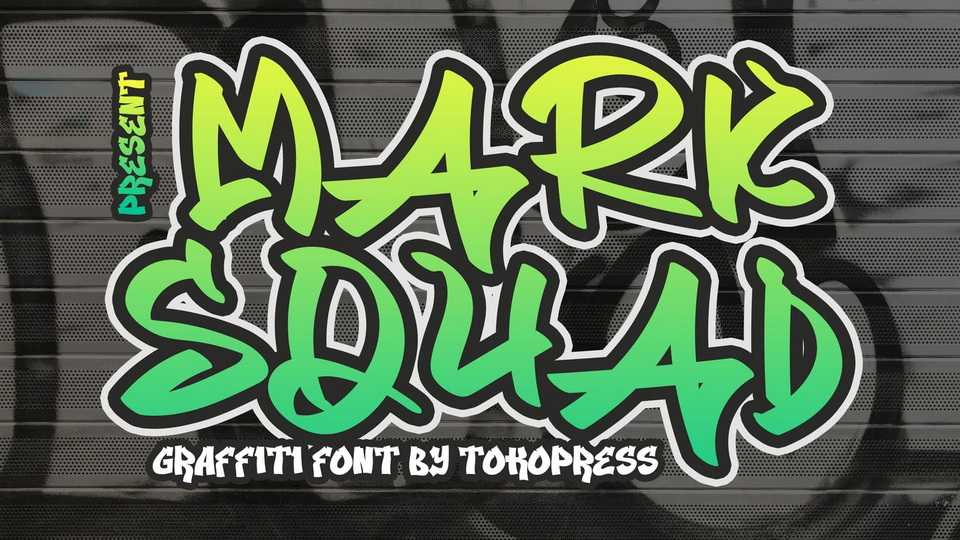
Download Mark Squad font, a graffiti typeface. Mark Squad font suits perfectly for hip-hop, rebellious and extreme sport segmented magazine, poster, movie title, music poster and so on